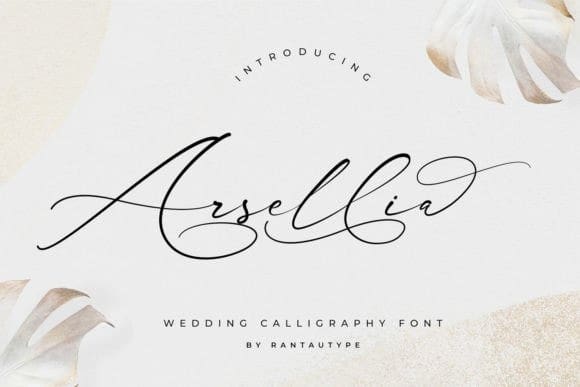
Arsellia Calligraphy Font
Arsellia Calligraphy Font is a great choice for watermarks on photography, signature logo designs, quotes, album covers, magazines, business cards and many other design projects.